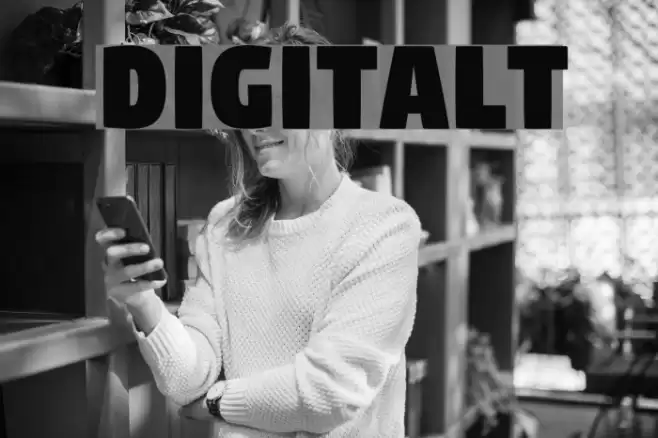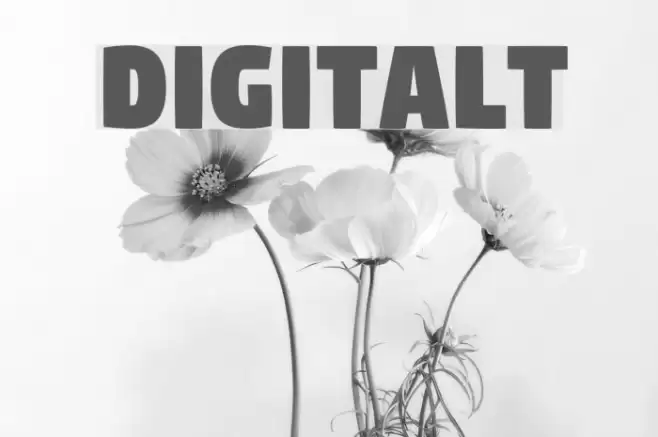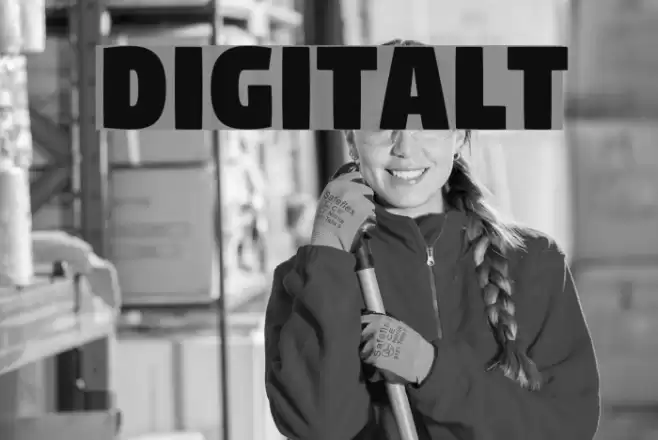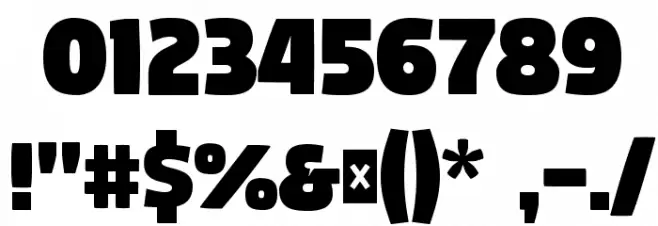
Digitalt Font
Digitalt Description
This font features bold, heavy strokes with a strong presence, making it ideal for impactful headlines and attention-grabbing designs. The characters are uniformly thick, providing a consistent and powerful visual weight. The uppercase and lowercase letters are designed with minimal contrast, emphasizing a modern and robust aesthetic. The numerals and special characters maintain the same boldness, ensuring a cohesive look across all text elements. Its geometric shapes and clean lines contribute to a contemporary and assertive style, suitable for branding, posters, and advertising materials.
A bold, heavy font with strong geometric shapes and minimal contrast from Uncategorized fonts.
- Proposed Projects: Ideal for branding, posters, advertising, and any project requiring a strong visual impact.